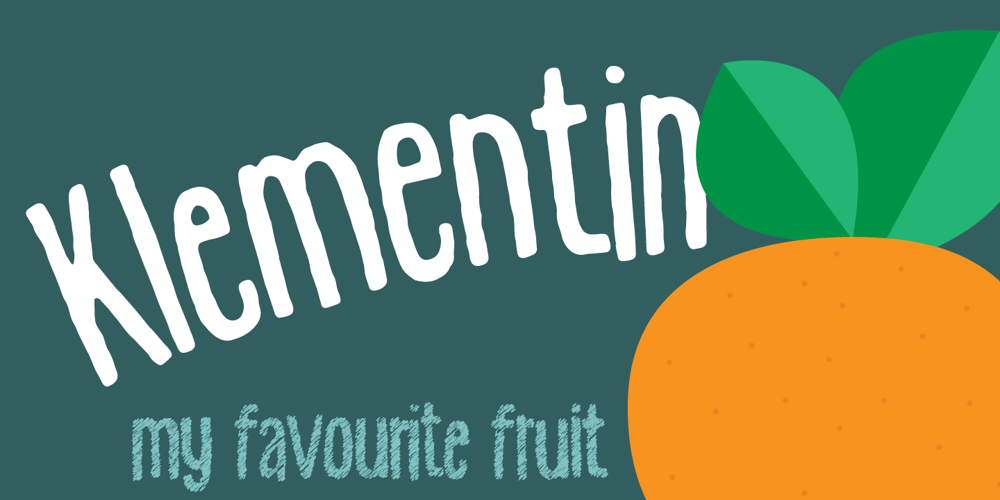
Klementin Font Family was designed by Jakob Fischer and published by PizzaDude.dk. Klementin contains 2 styles and family package options. Are you looking for a slightly blurred and rough, yet super legible text font? Well, then Klementin is probably something for you! Besides loads of international support, it comes with 5 different versions of each lowercase letter! Yes FIVE different versions! Enough to fool anybody, making then think that this is your own handwriting! 🙂